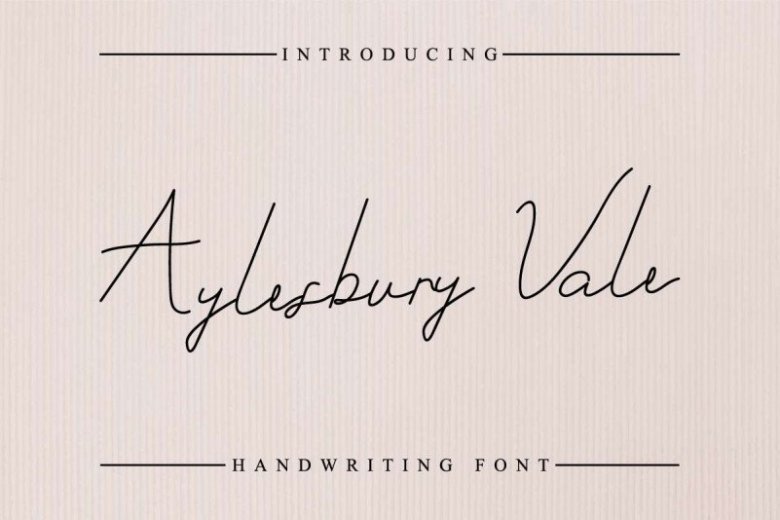
Aylesbury Vale Handwritting Font
Aylesbury Vale is a siganture style script handwriting font, This is a modern signle line or monoline font with natural handwriting look. It has a unique glyhps set that is the classic, elegant, strong, vintage, stylish and sophisticated. Also it has full lowercase alternatives on each gplyhs.